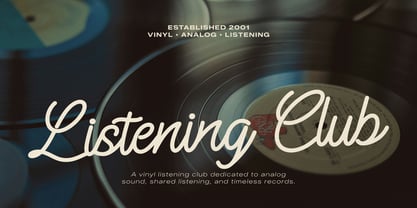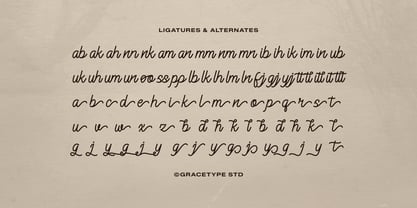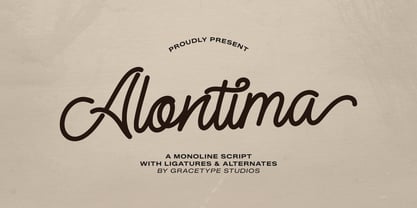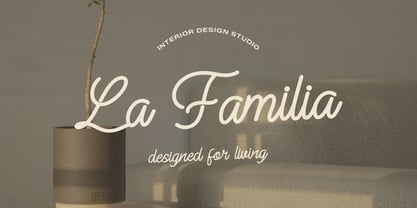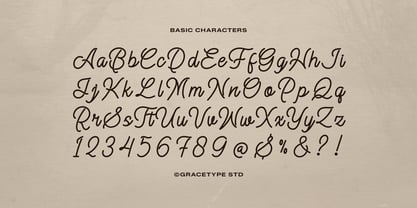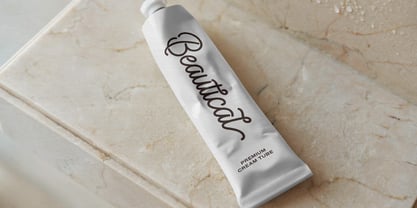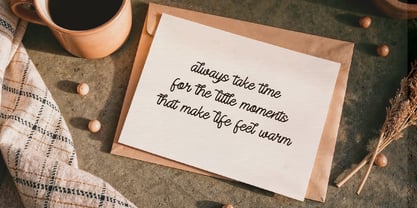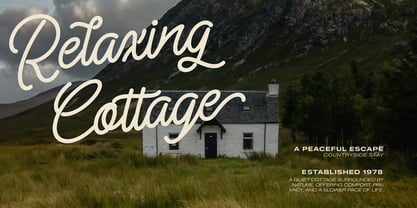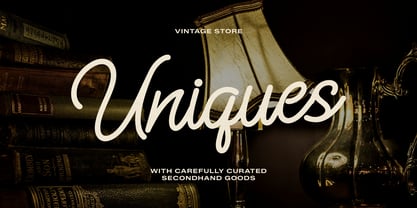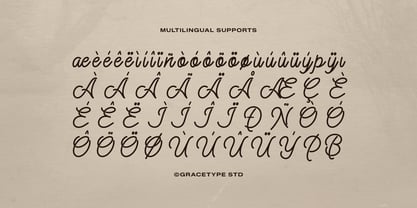
Alontima
by Tini Fitriani
The Alontima Font Family was designed by and published by Tini Fitriani. Alontima contains 2 styles and family package options. More about this family
Alontima | Monoline Script, from Gracetypestudio, suitable for any projects such as: logos, branding projects, homeware designs, product packaging, mugs, quotes, posters, shopping bags, t-shirts, book covers, name card, invitation cards, greeting cards, label, photography, watermark, special events, and all your other lovely projects that need a Script taste.